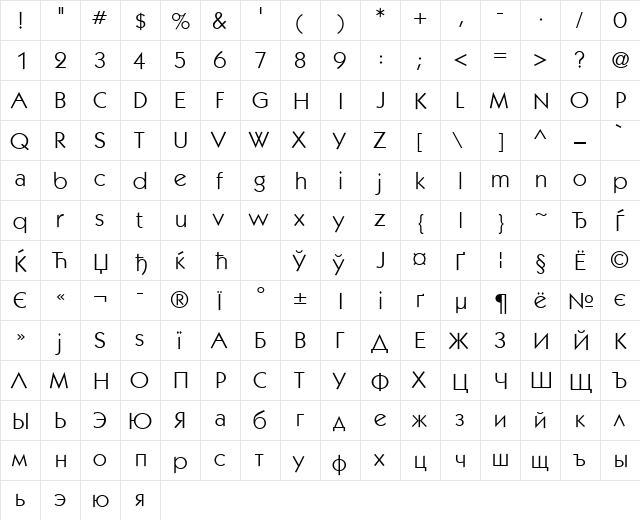
KabelCTT Book Regular
Design Context for KabelCTT Book Typeface
KabelCTT Book offers clean, dependable letterforms without strong stylistic allegiance, making it a practical choice for designers who need flexibility.
Pro Tip: Use KabelCTT Book in both headline and body roles to test its range before committing to a single application.